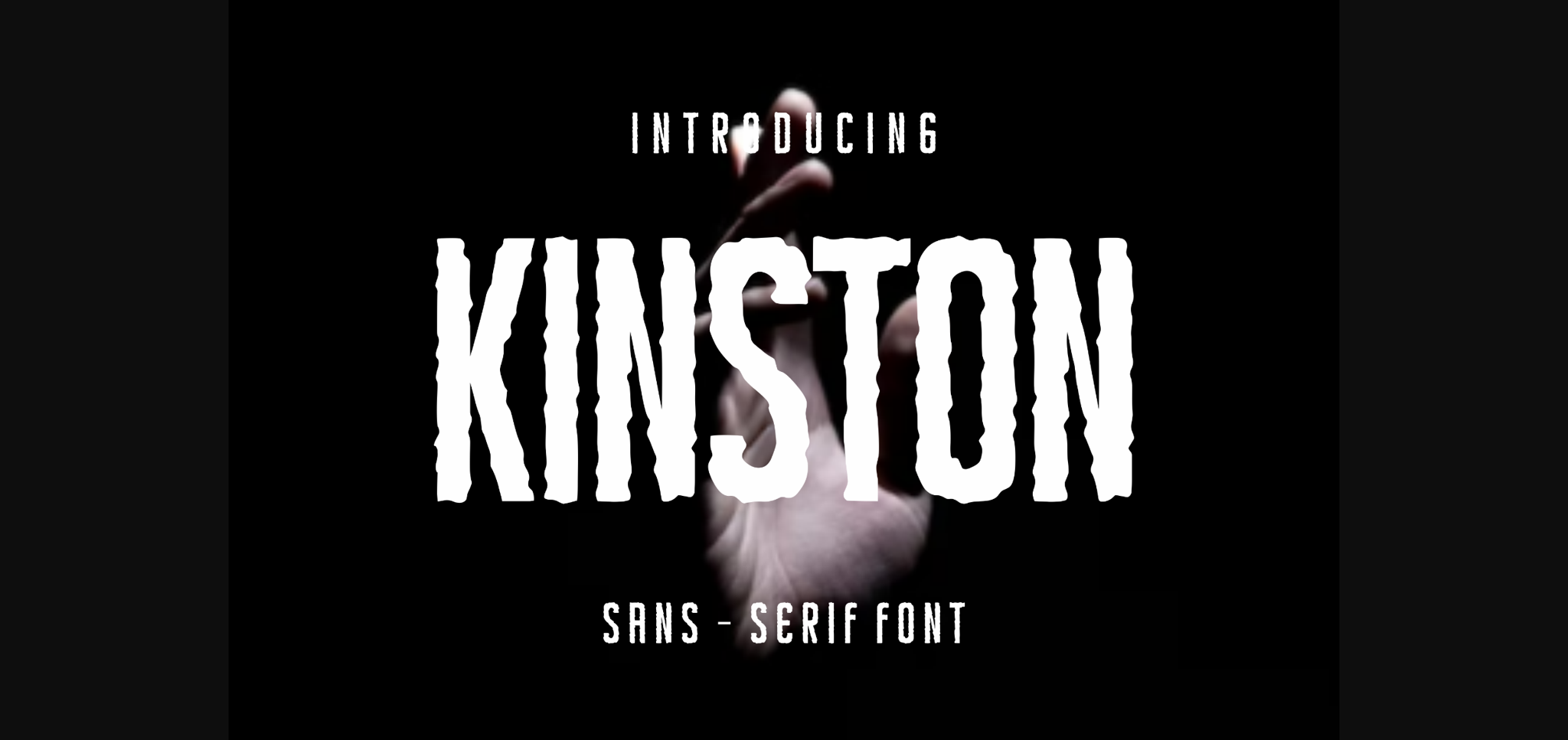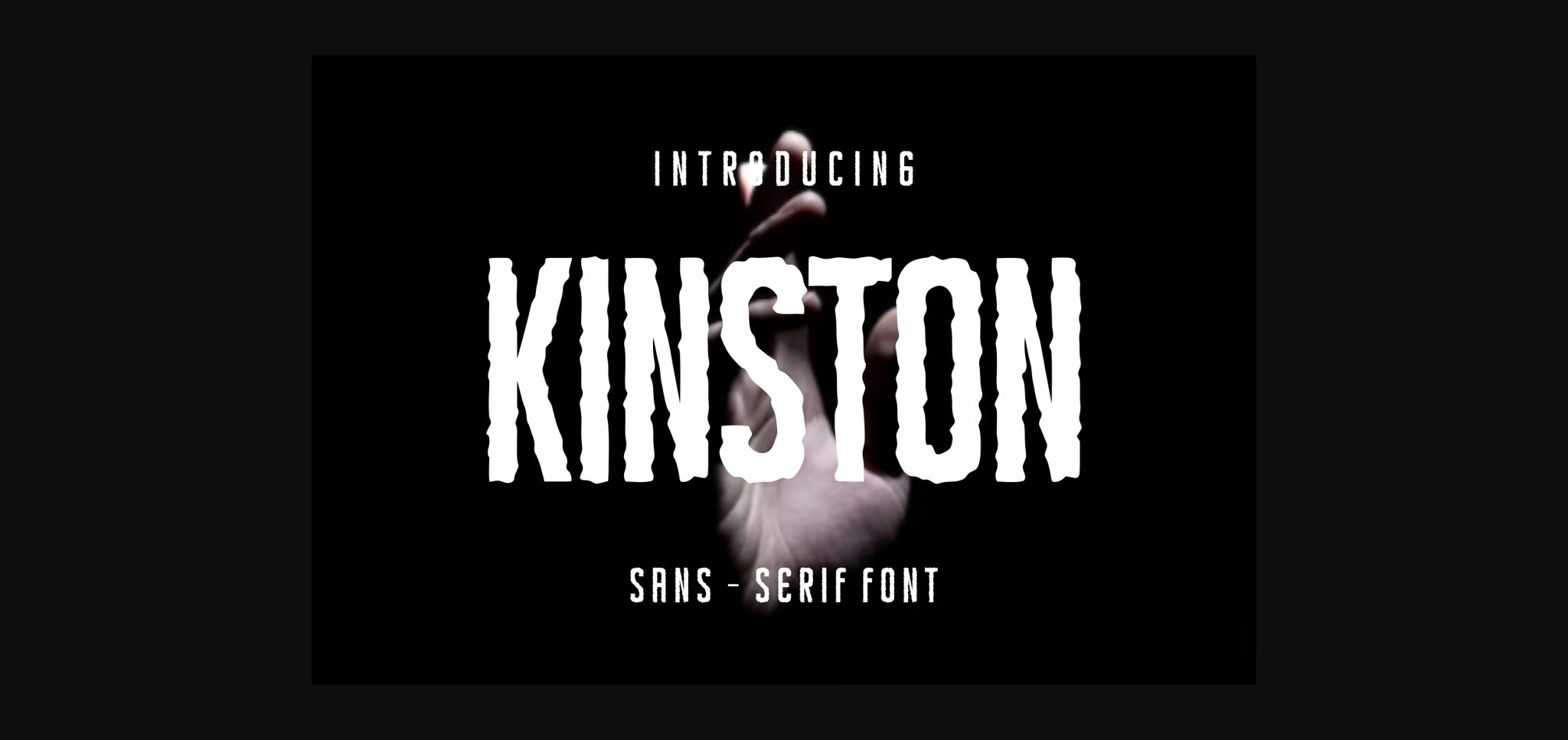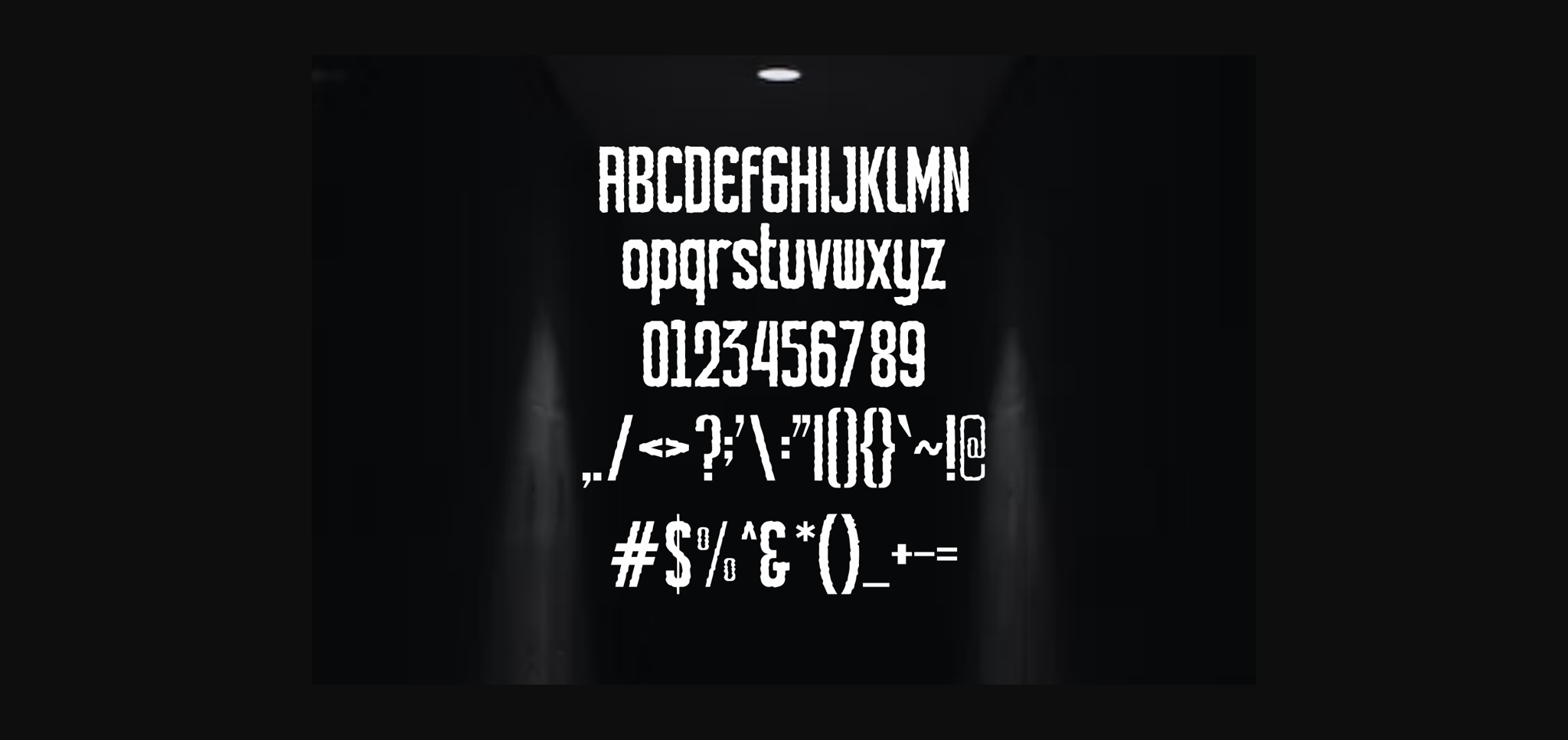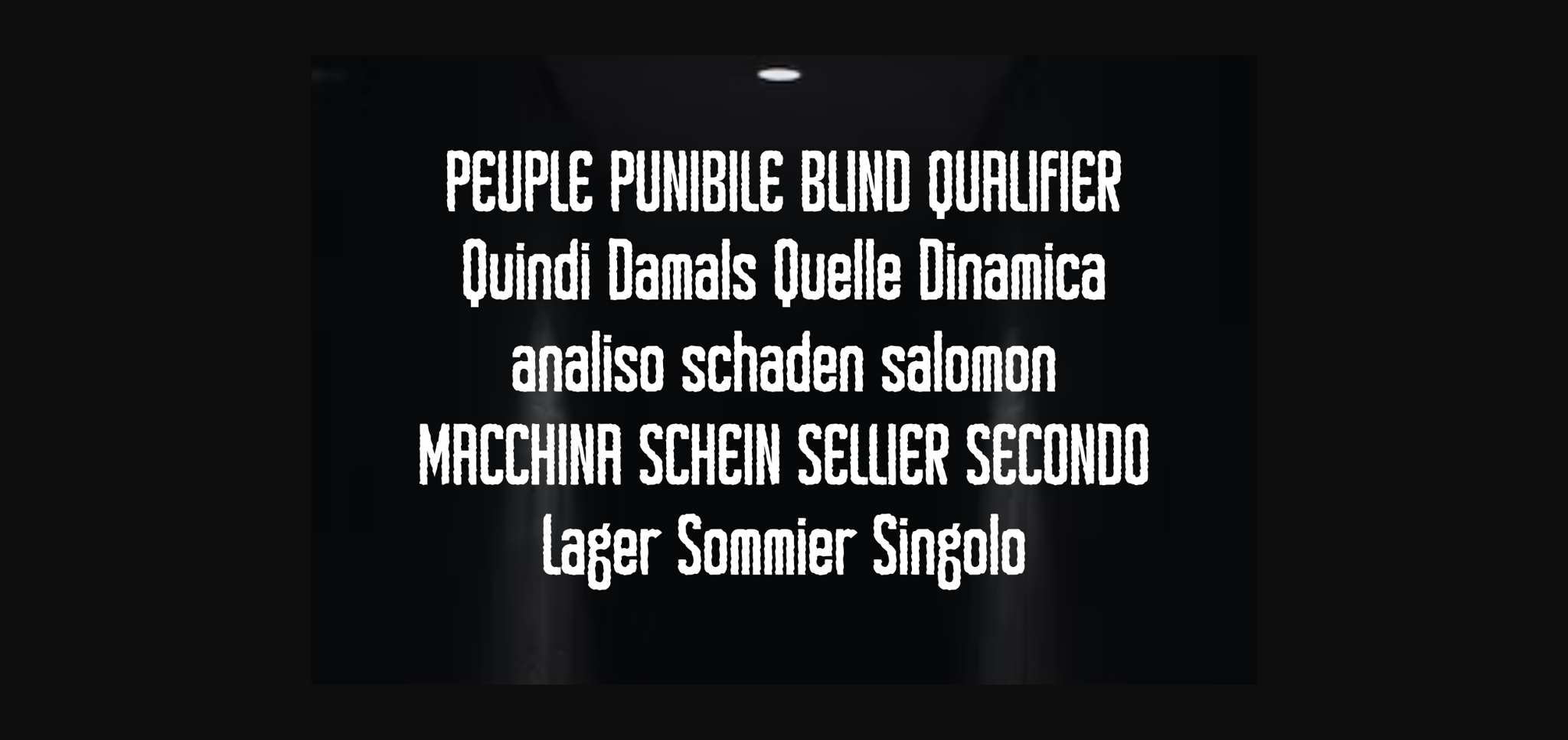
Kinston is a quirky and modern sans serif font, perfectly suited on print/screen. It is perfect for branding, name cards, posters, logos, magazines, covers, banners, t-shirts, headers, or even large-scale artwork.